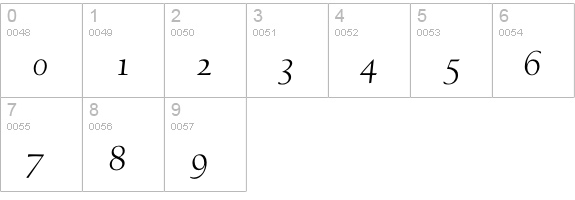
GoudyVillageH-Italic is a distinctive, italic variant in the GoudyVillageH typeface family \xE2\x80\x94 well suited to design and typography projects.
GoudyVillageH-Italic is a beautifully crafted font that exudes elegance and sophistication. Its delicate italic style adds a touch of refinement to any design project, making it perfect for invitations, branding, and more. The flowing lines and graceful curves of this font are sure to capture attention and leave a lasting impression. The best part is that GoudyVillageH-Italic is available for free download at FontsMarket.com. This means you can add this stunning font to your collection without spending a penny. Don't miss out on the opportunity to enhance your creations with the timeless beauty of GoudyVillageH-Italic. Download it today and elevate your designs to new heights!